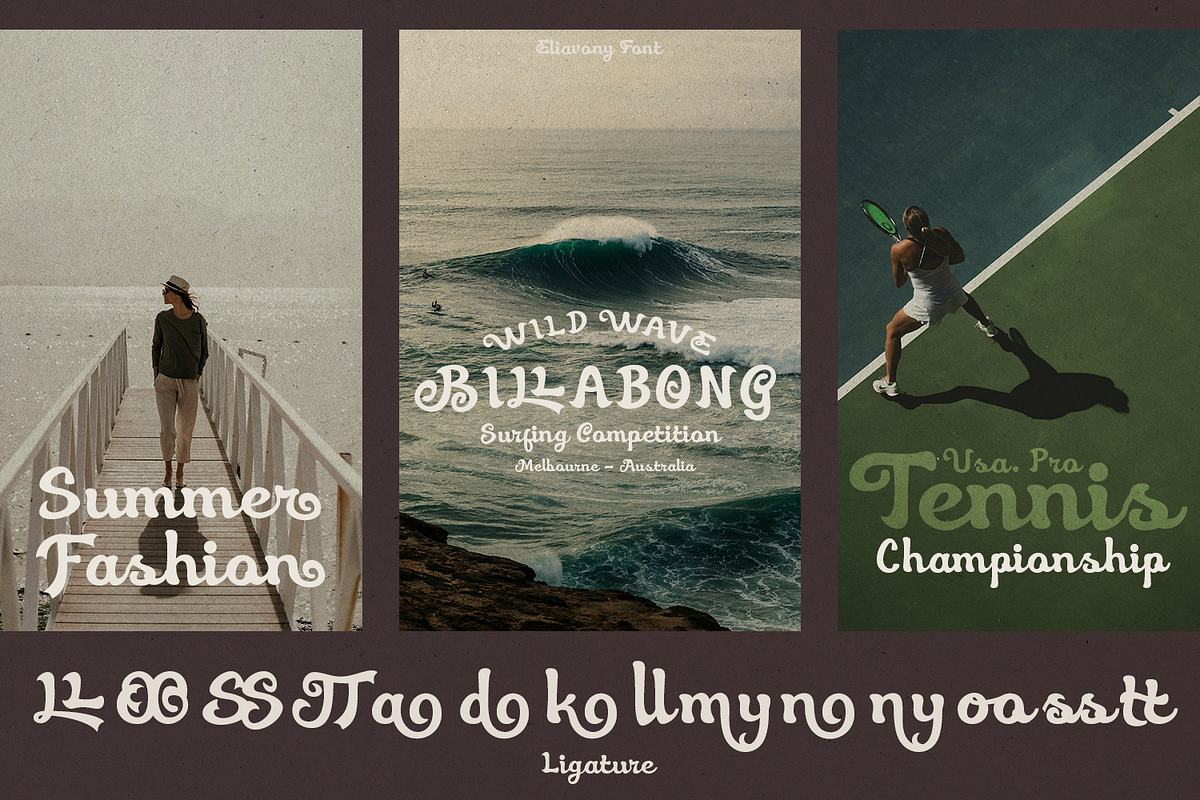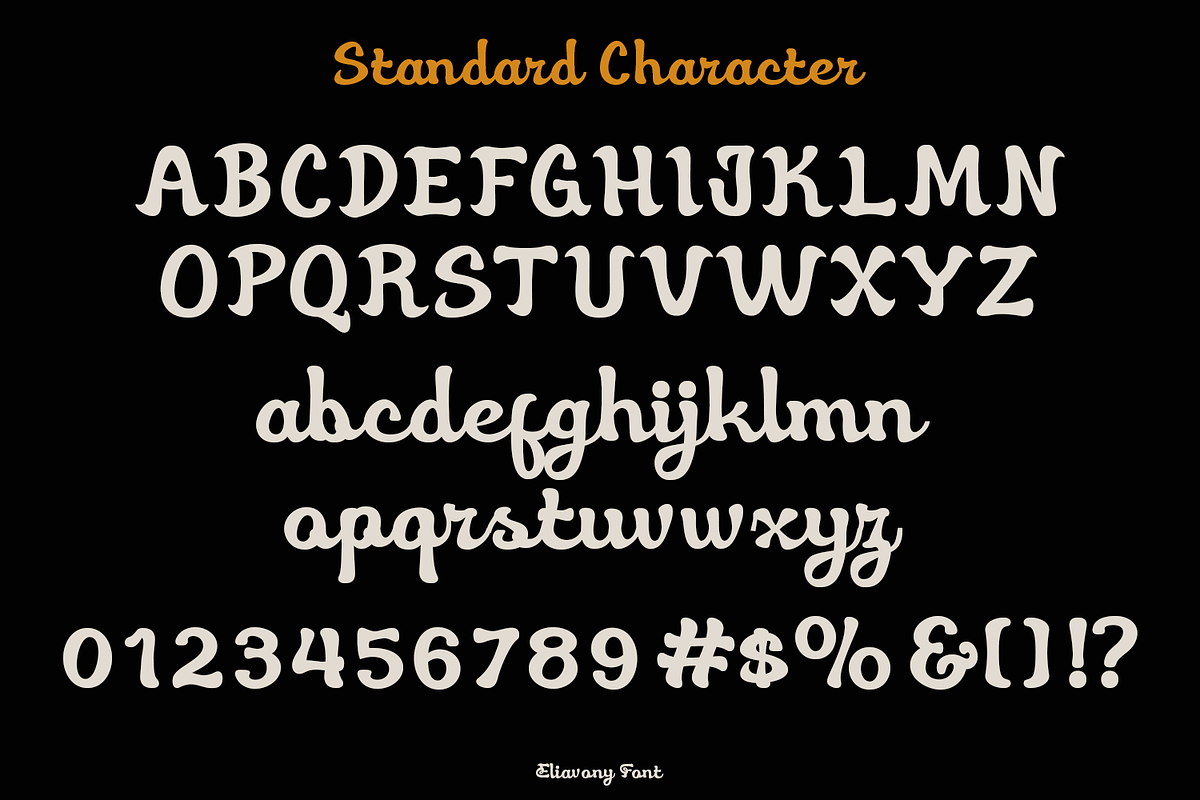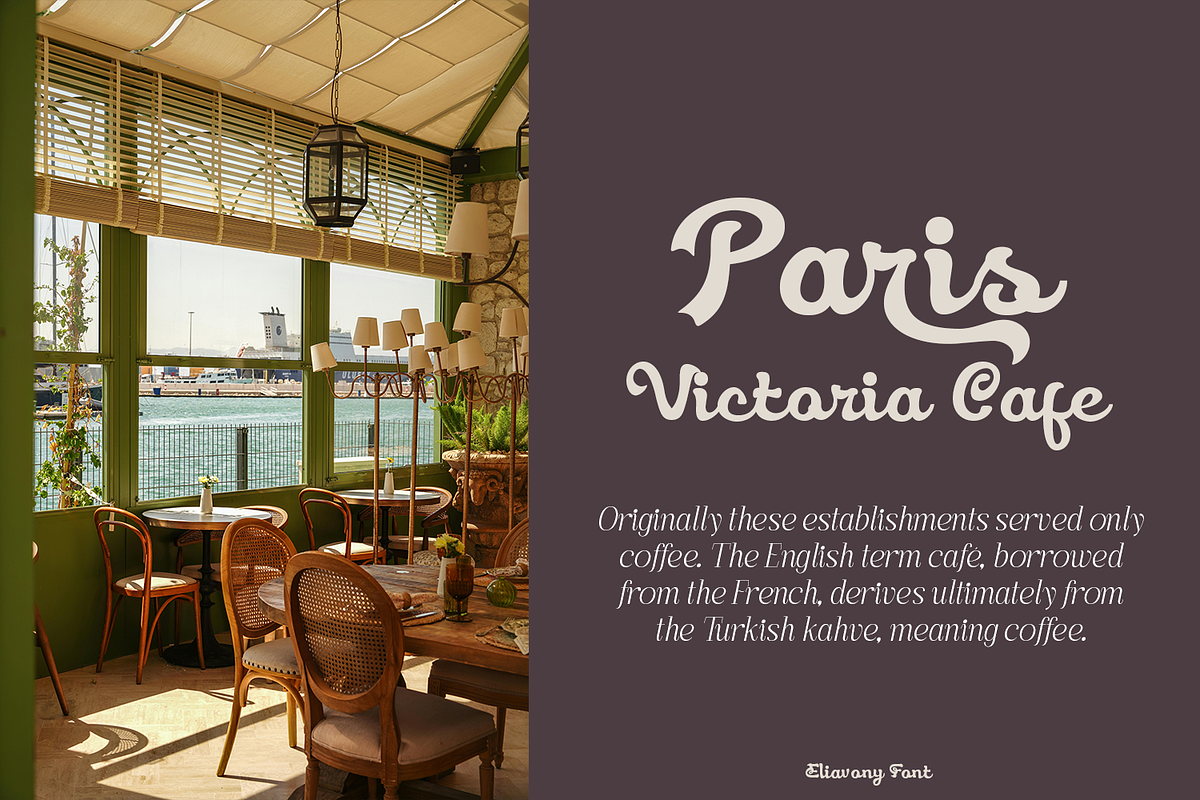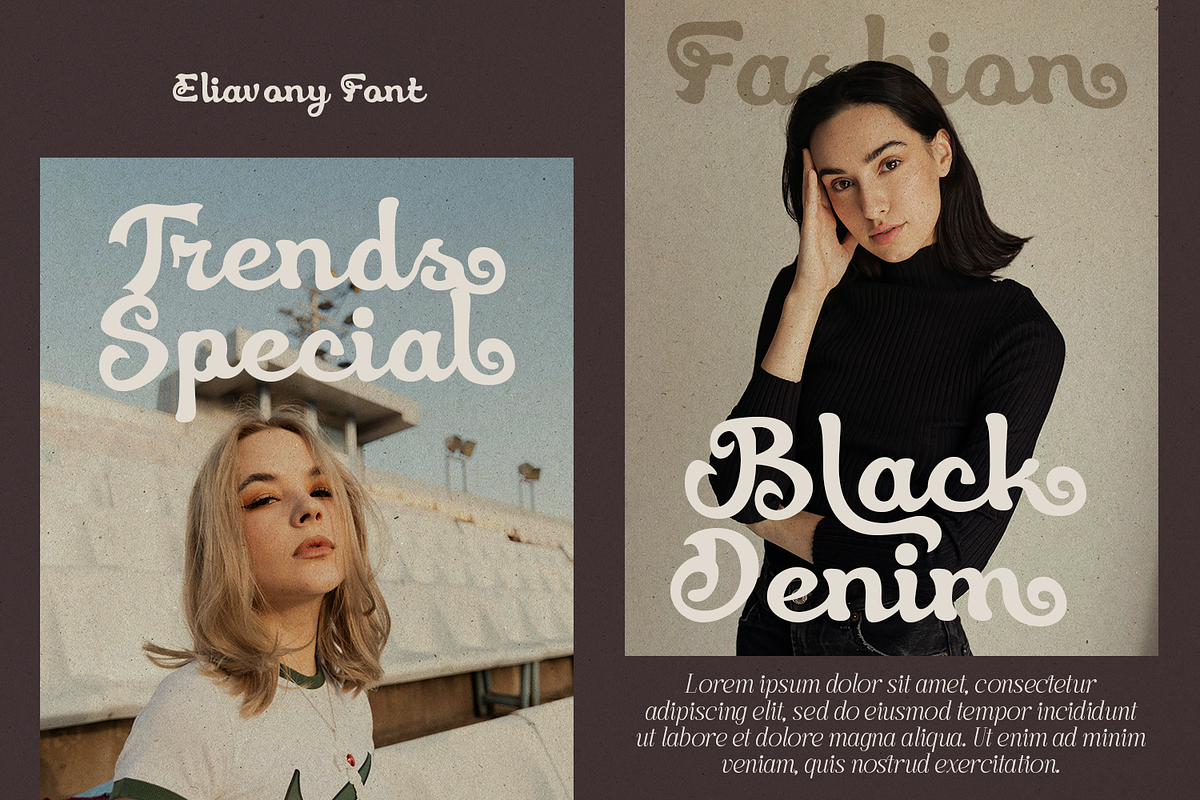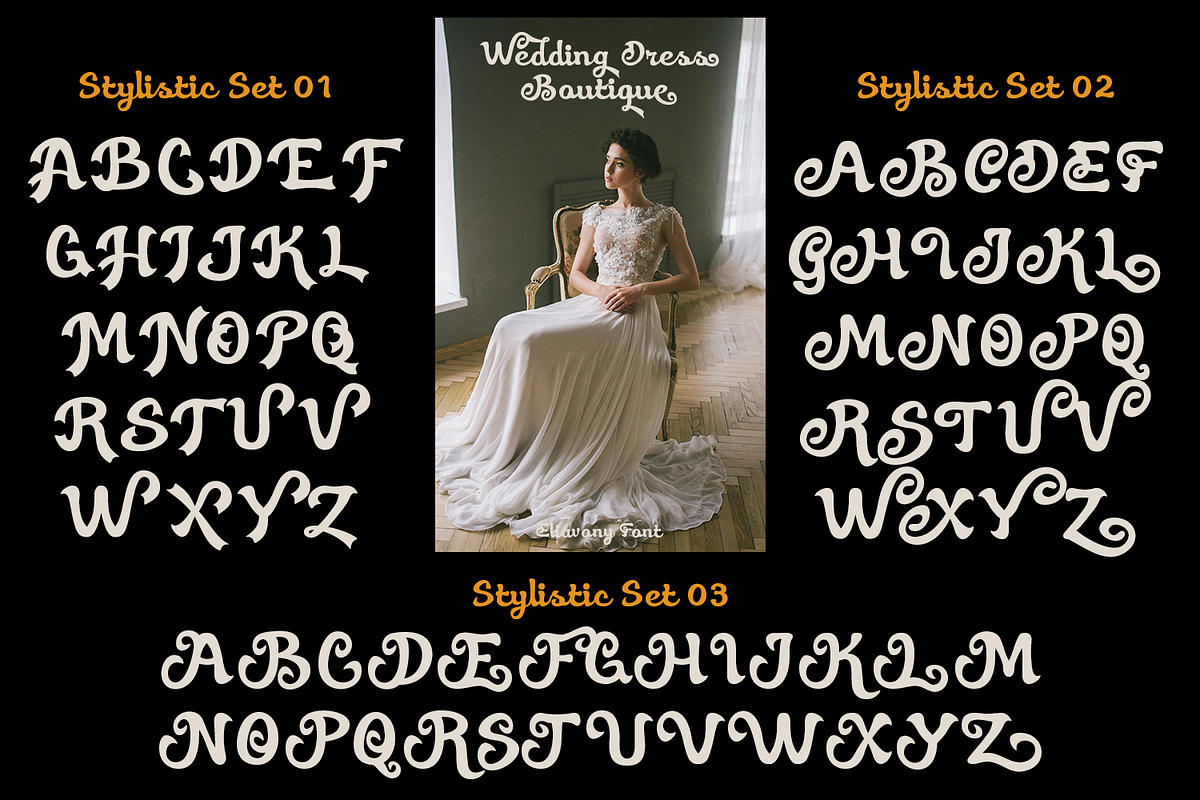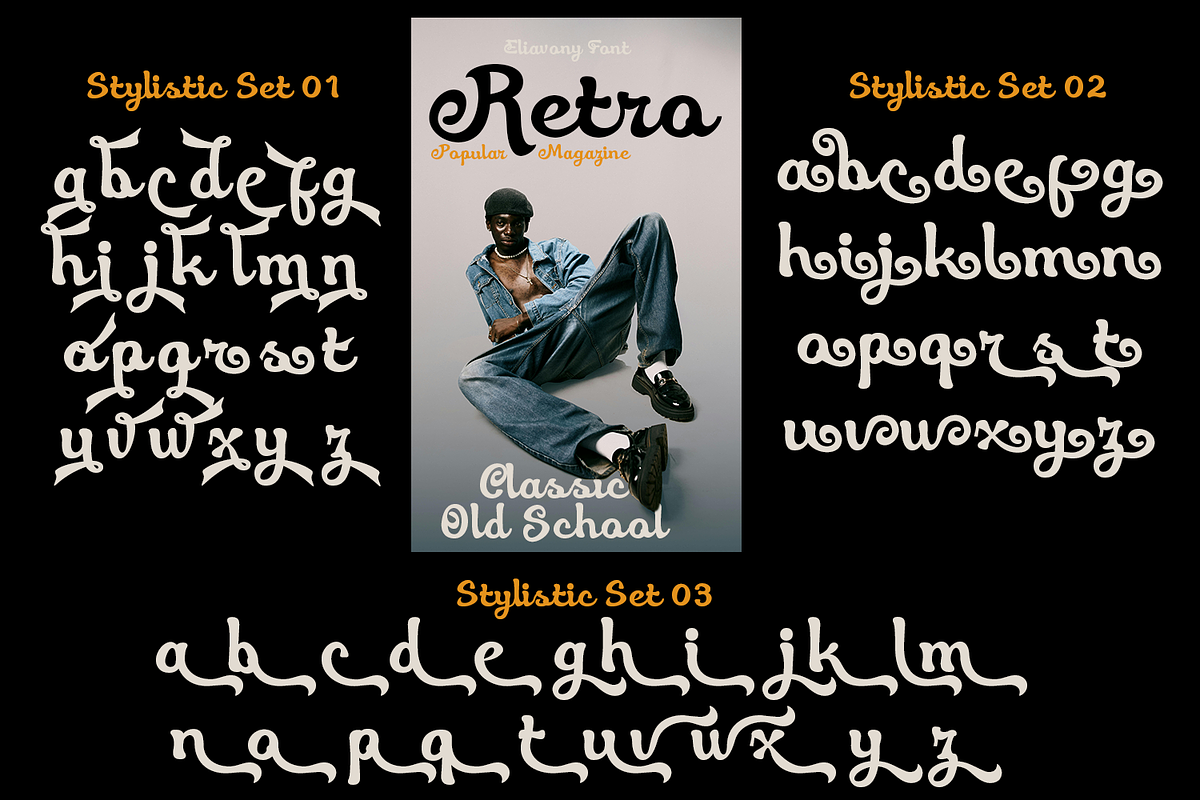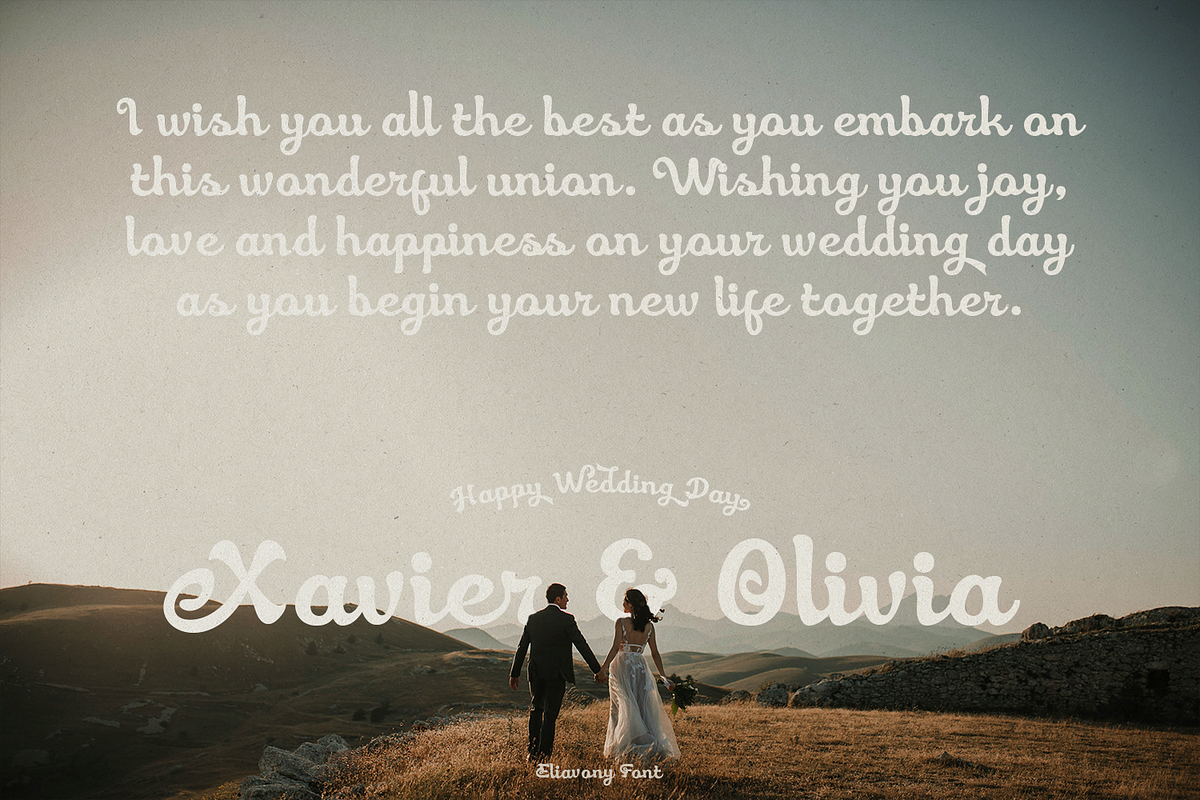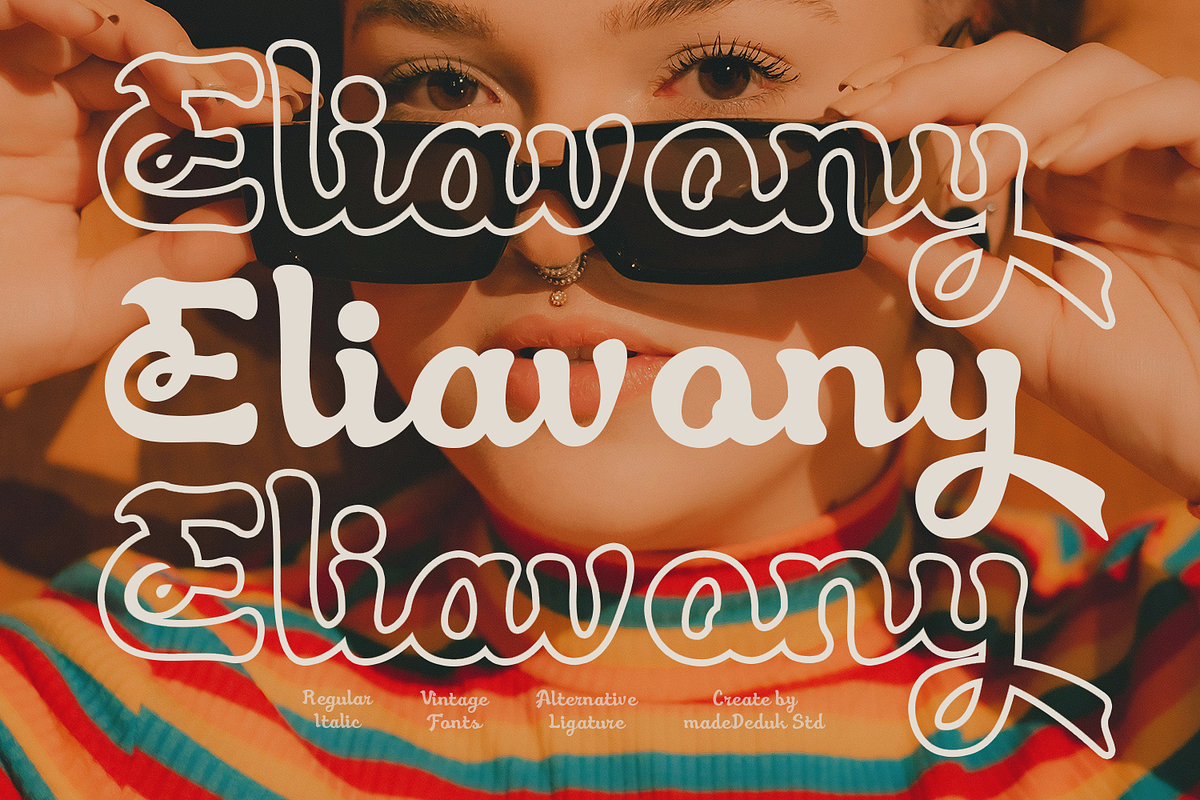
Eliavony Retro Script
Eliavony is a retro script come with 70's retro style. You can explore and combine creating rhythm for comfortable reading. Bold and readable, carefully creating every glyph, designing beautiful simple words with this font. Simple and refined use this font for any branding, product packaging, invitation, quotes, headline, label, poster, logo or any type of advertising purpose makes it ideal for whether you’re creating digital content or printed materials.